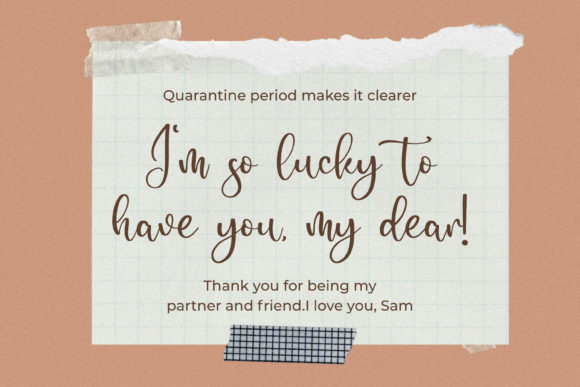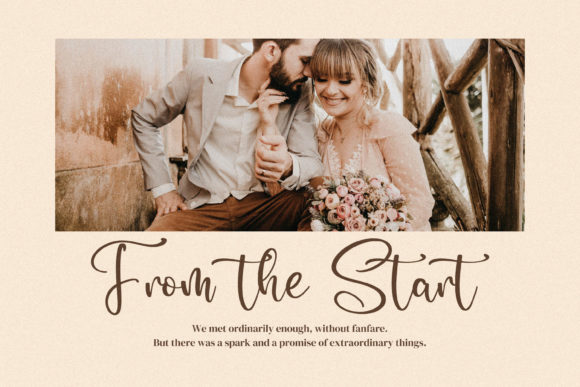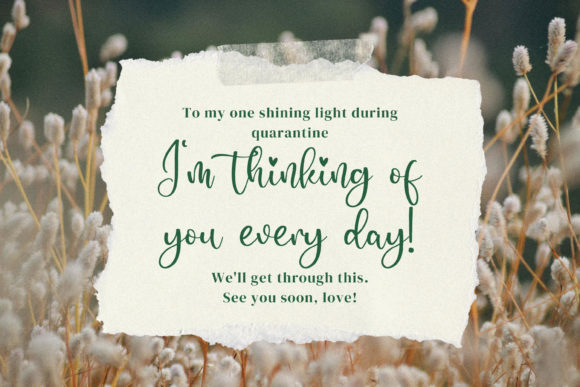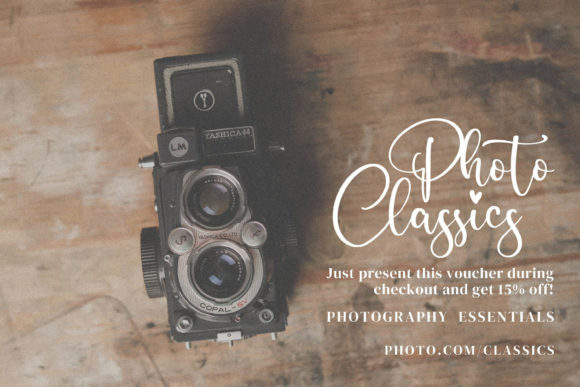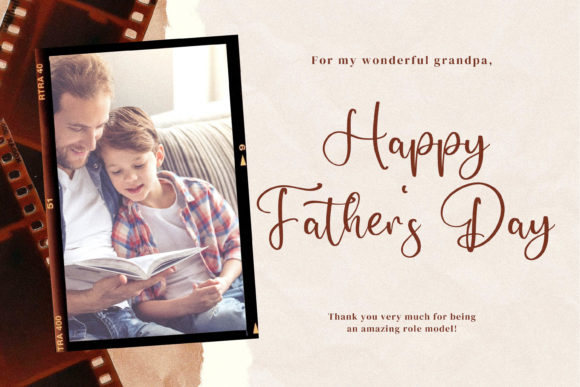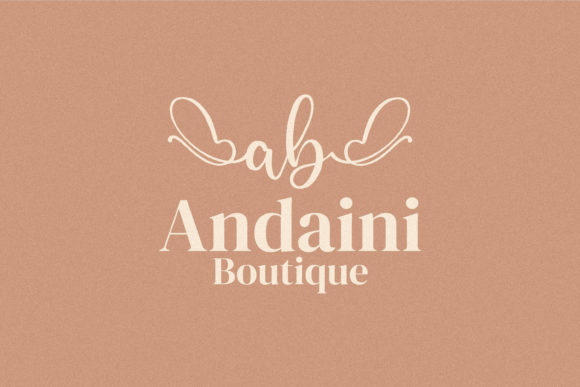
Fikashu Font: Elevate Your Designs with Elegance and Sophistication
In the world of typography, a font can make or break a design. For designers and crafters seeking to add a touch of luxury and refinement to their projects, the Fikashu Font is an exceptional choice. This chic, refined script font emanates sophistication and elegance, making it the perfect match for a wide range of applications. In this article, we’ll delve into the features and benefits of the Fikashu Font, and explore how it can elevate your designs to new heights.
A Font that Exudes Sophistication
Fikashu is a masterfully crafted script font that boasts a high level of sophistication and elegance. Its flowing lines, curves, and swashes evoke a sense of luxury and refinement, making it ideal for designs that require a touch of class. Whether you’re working on a branding project, packaging design, or digital content, the Fikashu Font is sure to impress.
Stylish Alternates and Ligatures
One of the standout features of the Fikashu Font is its stylish alternates and ligatures. These additional glyphs and swashes provide a wealth of creative possibilities, allowing you to customize your text and add a unique touch to your designs. With the Fikashu Font, you can create stunning headings, titles, and body text that are sure to capture the attention of your audience.
The Fikashu Font is PUA (Private Use Area) encoded, which means that you can access all glyphs and swashes with ease. This encoding allows you to use the font’s advanced features, such as stylistic alternates and ligatures, without the need for complex software or technical expertise. Simply install the font, and you’re ready to start creating stunning designs.
The Fikashu Font is an incredibly versatile typeface that can be used for a wide range of projects. Here are just a few examples of how you can use this font to elevate your designs:
- Branding and Logo Design: Use the Fikashu Font to create stunning logos, business cards, and letterheads that exude sophistication and elegance.
- Packaging Design: Add a touch of luxury to your product packaging with the Fikashu Font, perfect for high-end cosmetics, fashion, and food products.
- Digital Content: Use the Fikashu Font to create engaging social media graphics, blog posts, and website headers that are sure to capture the attention of your audience.
- Stationery and Invitations: Create beautiful stationery, invitations, and greeting cards that showcase the Fikashu Font’s elegant and refined style.
Why Choose the Fikashu Font?
With so many fonts available, why choose the Fikashu Font? Here are just a few reasons why this font stands out from the crowd:
- Unique and Elegant Design: The Fikashu Font boasts a unique and elegant design that is sure to make your designs stand out.
- Highly Versatile: The Fikashu Font can be used for a wide range of projects, from branding and packaging to digital content and stationery.
- Easy to Use: The Fikashu Font is PUA encoded, making it easy to access all glyphs and swashes.
- Exceptional Quality: The Fikashu Font is crafted to exceptionally high standards, ensuring that your designs look professional and polished.
In conclusion, the Fikashu Font is an exceptional choice for designers and crafters seeking to add a touch of elegance and sophistication to their projects. With its stylish alternates and ligatures, PUA encoding, and highly versatile design, this font is perfect for a wide range of applications. Whether you’re working on a branding project, packaging design, or digital content, the Fikashu Font is sure to elevate your designs to new heights.